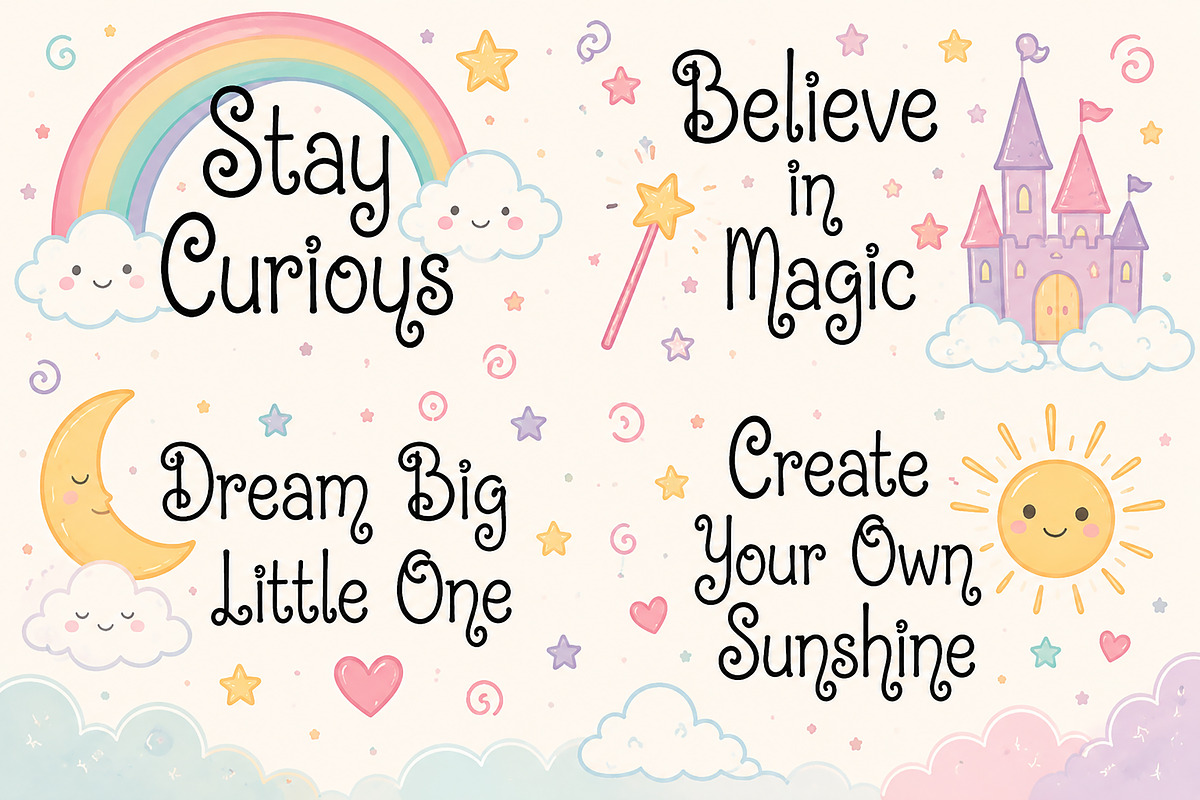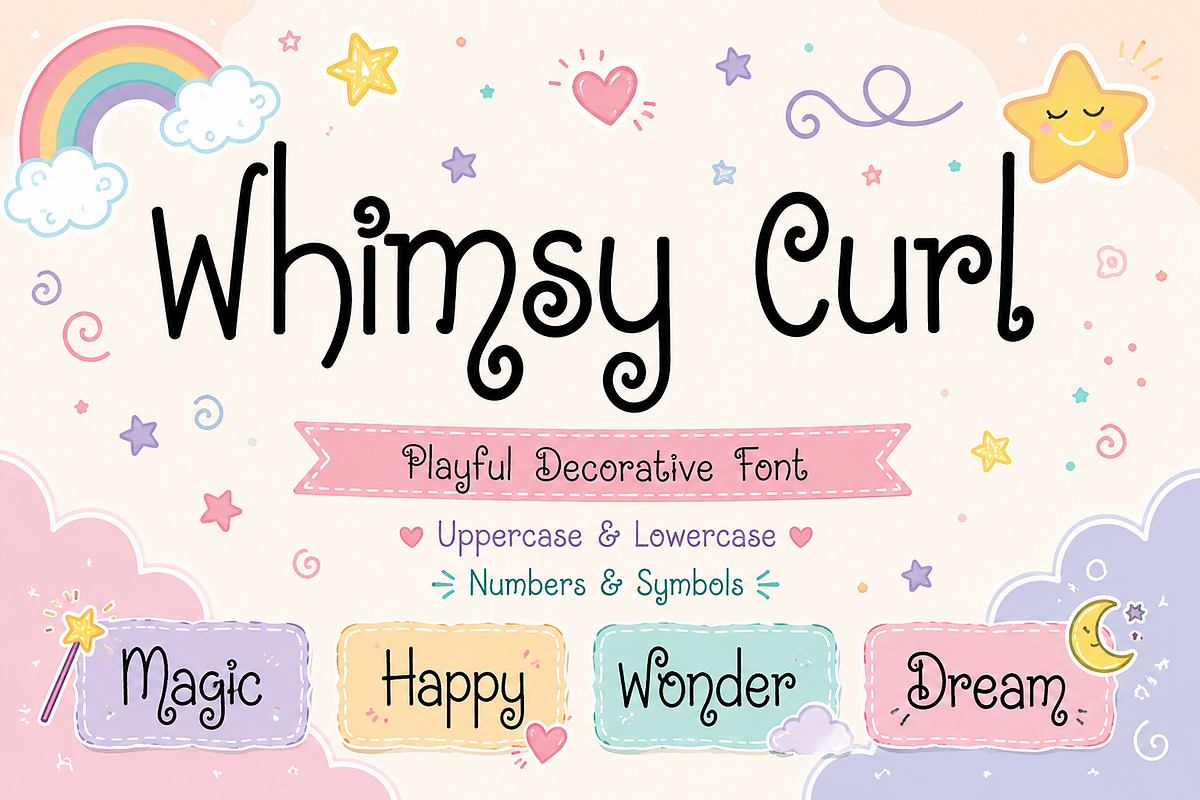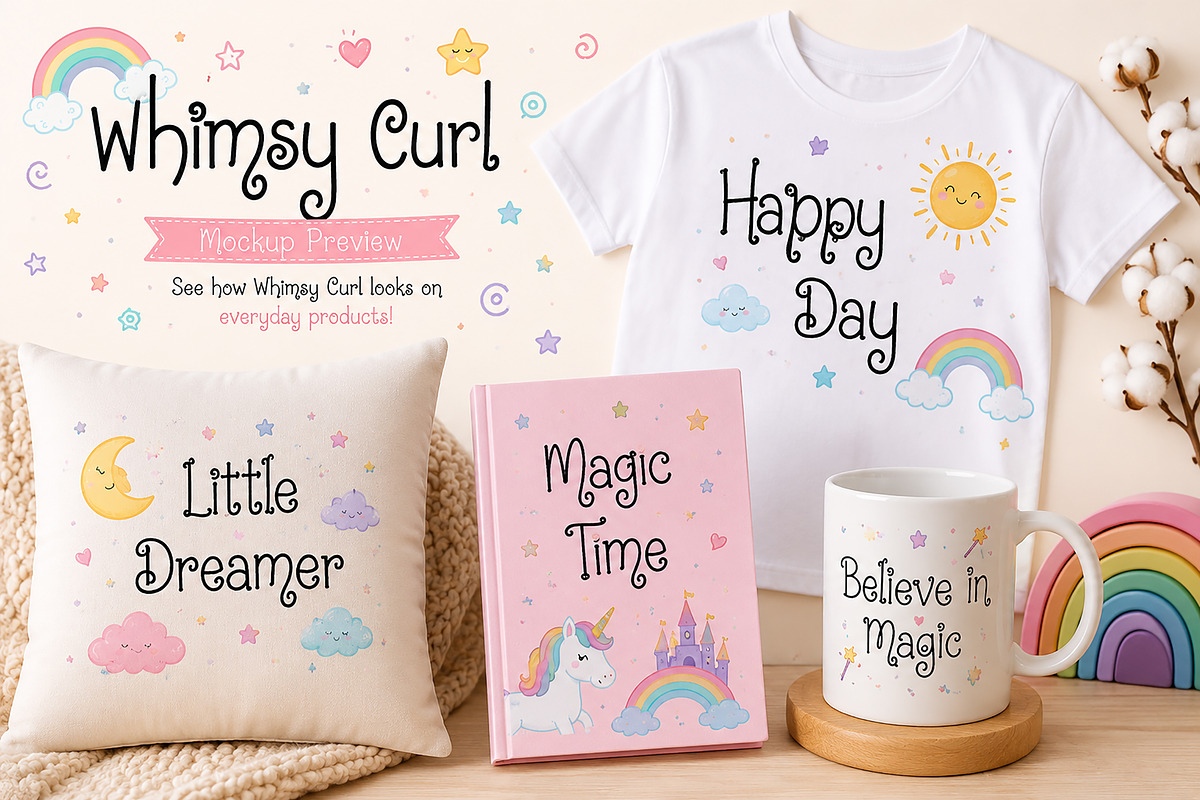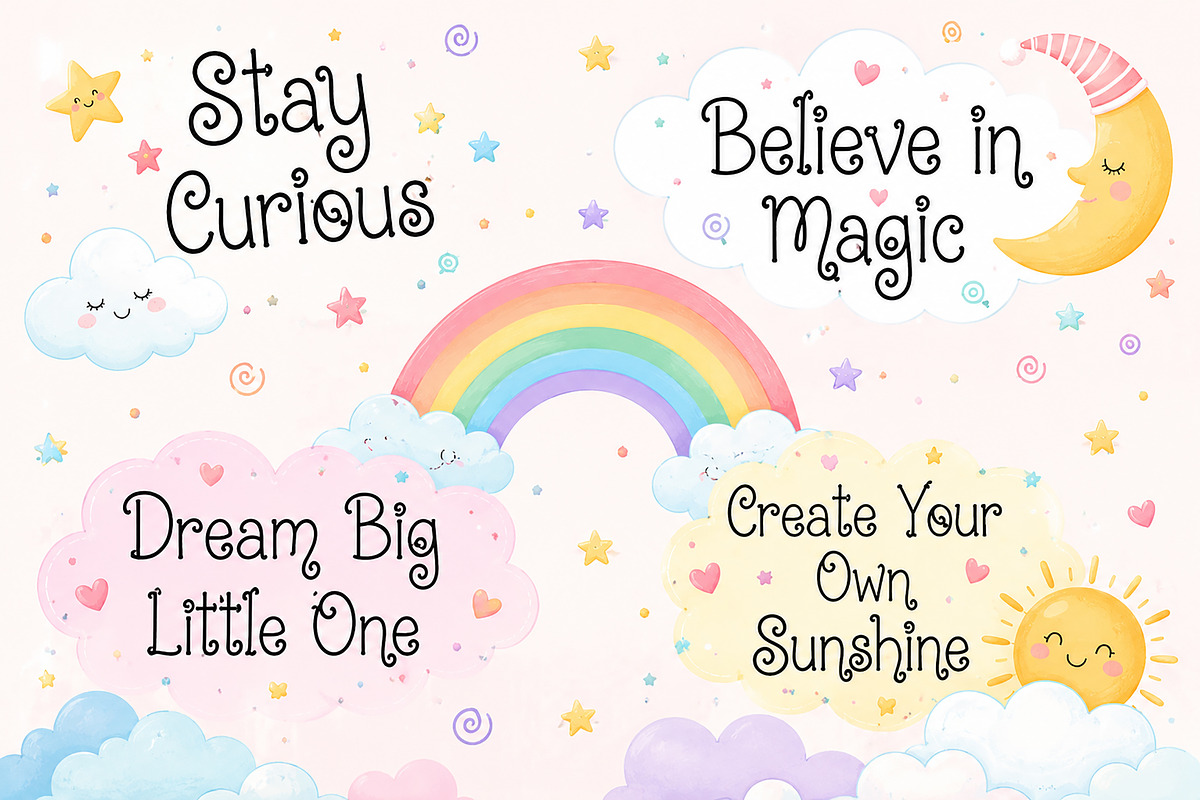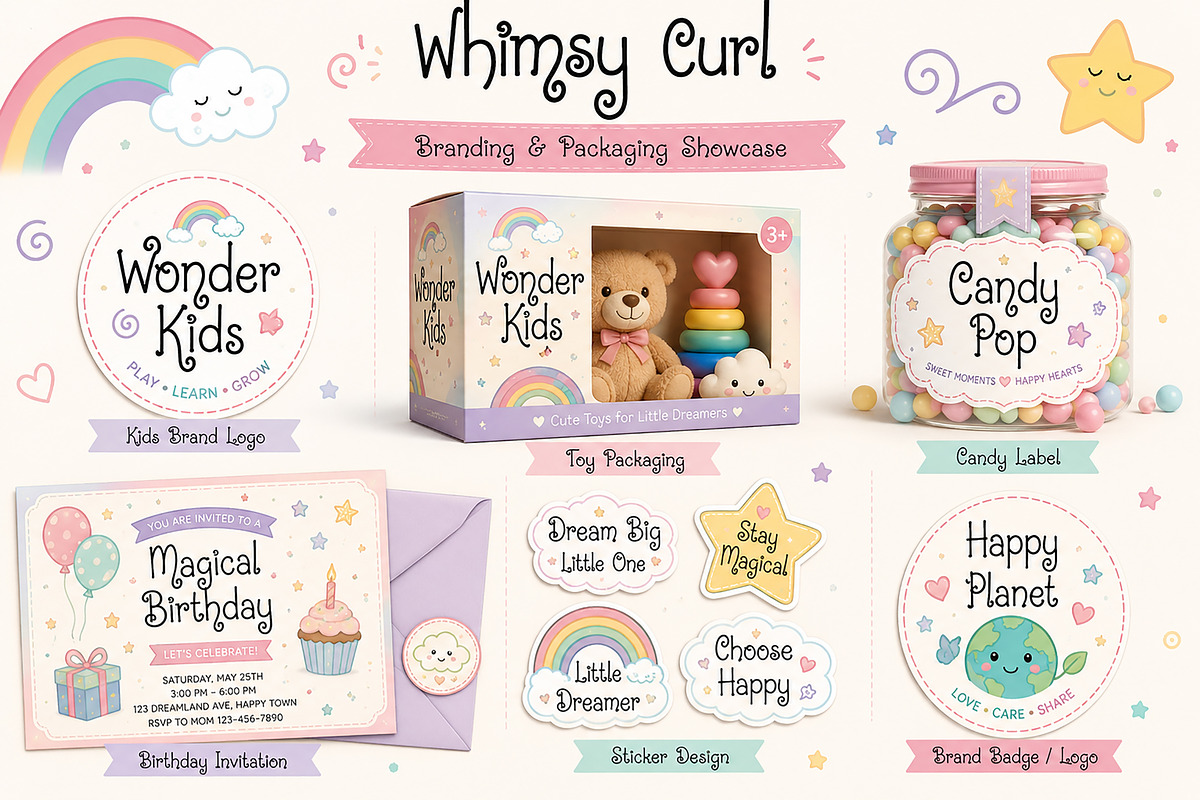
Whimsy Curl
Whimsy Curl – Playful Decorative Font
Introducing Whimsy Curl, a delightful and playful decorative font designed to bring joy, creativity, and imagination to your projects. Featuring charming curly details, whimsical letterforms, and a handcrafted feel, this font is perfect for children's designs, playful branding, invitations, packaging, and creative merchandise.
Whether you're designing a magical birthday invitation, a cute toy package, a fun t-shirt, or an eye-catching logo, Whimsy Curl adds a unique personality that instantly stands out. Its cheerful and friendly appearance makes it ideal for projects that need a touch of wonder and happiness.
### Perfect For
• Children's Branding
• Toy Packaging
• Candy & Sweet Labels
• Birthday Invitations
• Nursery Wall Art
• Stickers & Cricut Projects
• T-Shirts & Merchandise
• Book Covers
• Greeting Cards
• Social Media Graphics
• Logos & Branding
• Craft Projects
Bring a little magic, happiness, and creativity to your next project with Whimsy Curl!